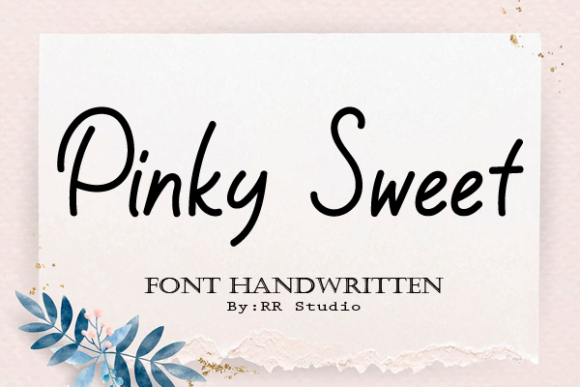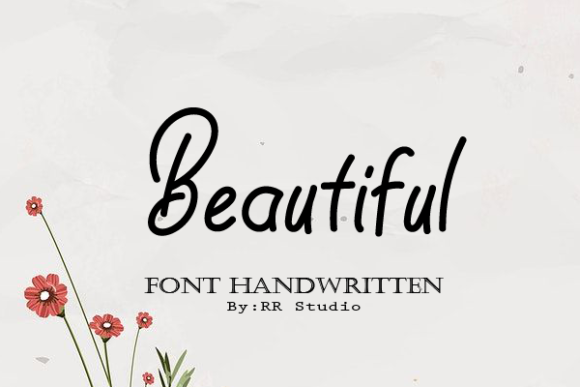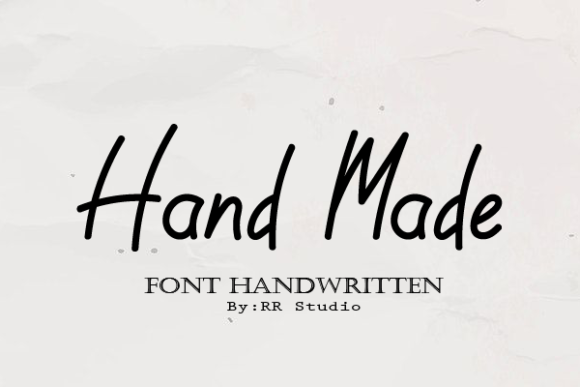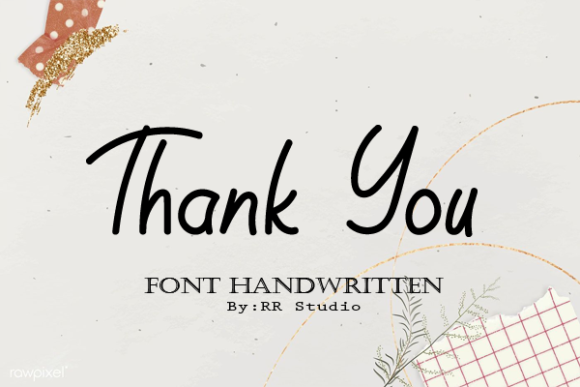
Aesthetic Font
About Aesthetic Font
Aesthetic is a font that seamlessly blends style and elegance, offering a truly captivating handwritten experience. Its graceful and meticulously crafted letterforms make it an exquisite choice for a wide array of design projects, adding a touch of sophistication and charm to every composition.
Whether you’re creating wedding invitations that evoke romance, thank you cards that convey heartfelt appreciation, or quotes that inspire and uplift, Aesthetic effortlessly lends an air of refinement to each piece. Its fluid strokes and carefully balanced characters create a harmonious visual rhythm that draws the eye and captures attention.
The versatility of Aesthetic is evident in its ability to adapt to various design contexts. From logos that require a signature touch to business cards that demand a personalized flourish, the font’s timeless beauty shines through. Aesthetic excels at conveying both classic elegance and contemporary flair, making it an ideal choice for a wide range of creative projects.
The handwritten nature of Aesthetic imparts a sense of authenticity and intimacy to your designs. Each character carries a unique and distinct personality, reflecting the subtle imperfections that add to its charm. This human touch creates a connection with the audience, making your messages more relatable and impactful.
Aesthetic’s inherent elegance is enhanced by its smooth and flowing connections between letters, allowing for seamless transitions and legible text. This feature is particularly advantageous for longer passages of text, ensuring readability without compromising on visual appeal.
The font’s ability to exude a luxurious and sophisticated aura is complemented by its practicality. Aesthetic’s legibility ensures that it not only captivates the viewer’s attention but also effectively communicates your message. This makes it a versatile tool for a wide range of applications, from branding and marketing materials to social media graphics and beyond.
Incorporating Aesthetic into your design projects allows you to elevate ordinary elements into works of art. Its effortless elegance and timeless appeal make it a font that resonates with a diverse audience, making it a valuable asset in your design arsenal. Whether you’re aiming for a classic and refined look or a modern and chic aesthetic, Aesthetic has the versatility to meet your creative vision and exceed your expectations.
In summary, Aesthetic is more than just a font—it’s an embodiment of style, elegance, and creativity. Its ability to transform ordinary text into extraordinary designs is a testament to its design excellence. With Aesthetic as part of your creative toolkit, you have the power to create stunning visuals that leave a lasting impression and make your projects truly unforgettable.